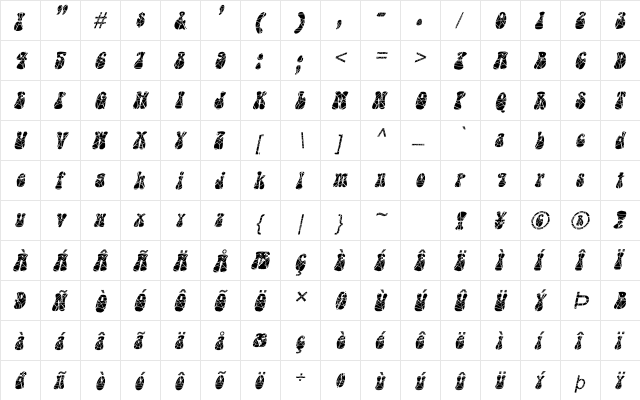
GrooveyCracked Italic
Design Context for GrooveyCracked Typeface
GrooveyCracked is a composed and adaptable typeface that performs quietly and consistently across a wide range of design contexts. The slanted form adds forward momentum and visual energy.
Pro Tip: Try GrooveyCracked for annotation and caption copy alongside an upright companion — the contrast in angle creates a dynamic but ordered typographic system.